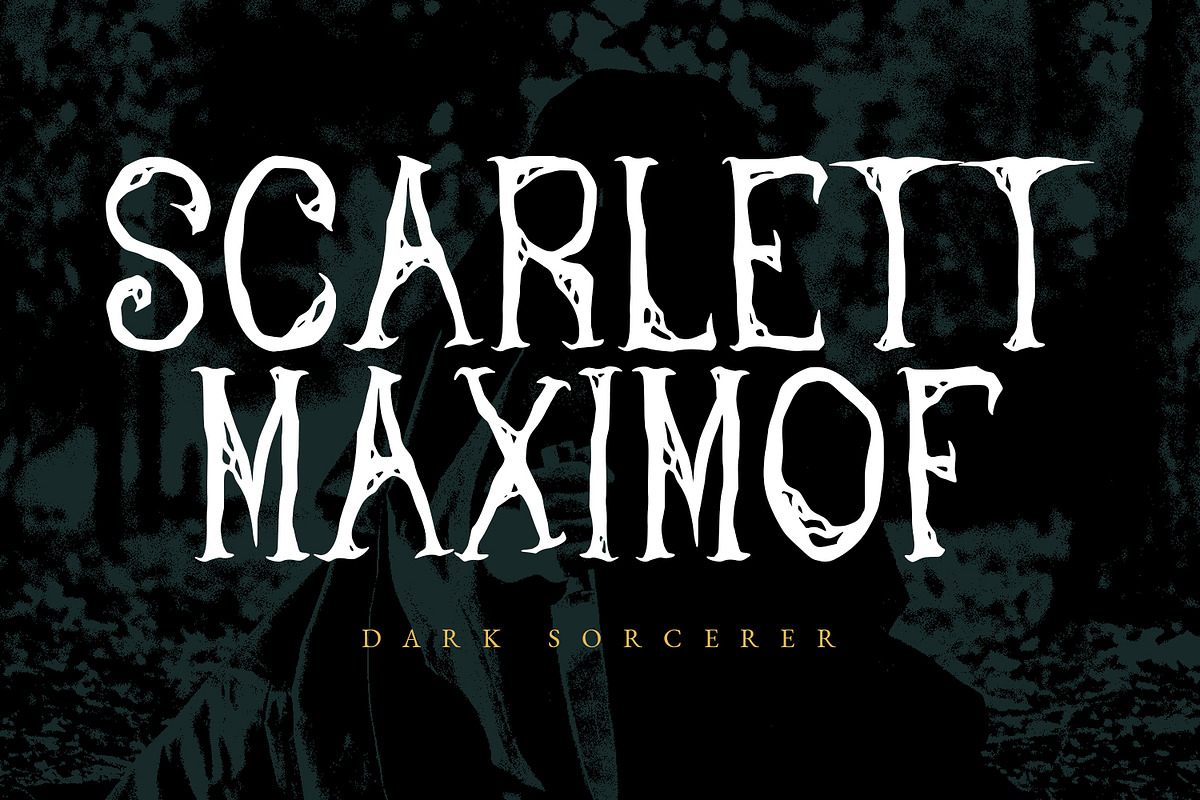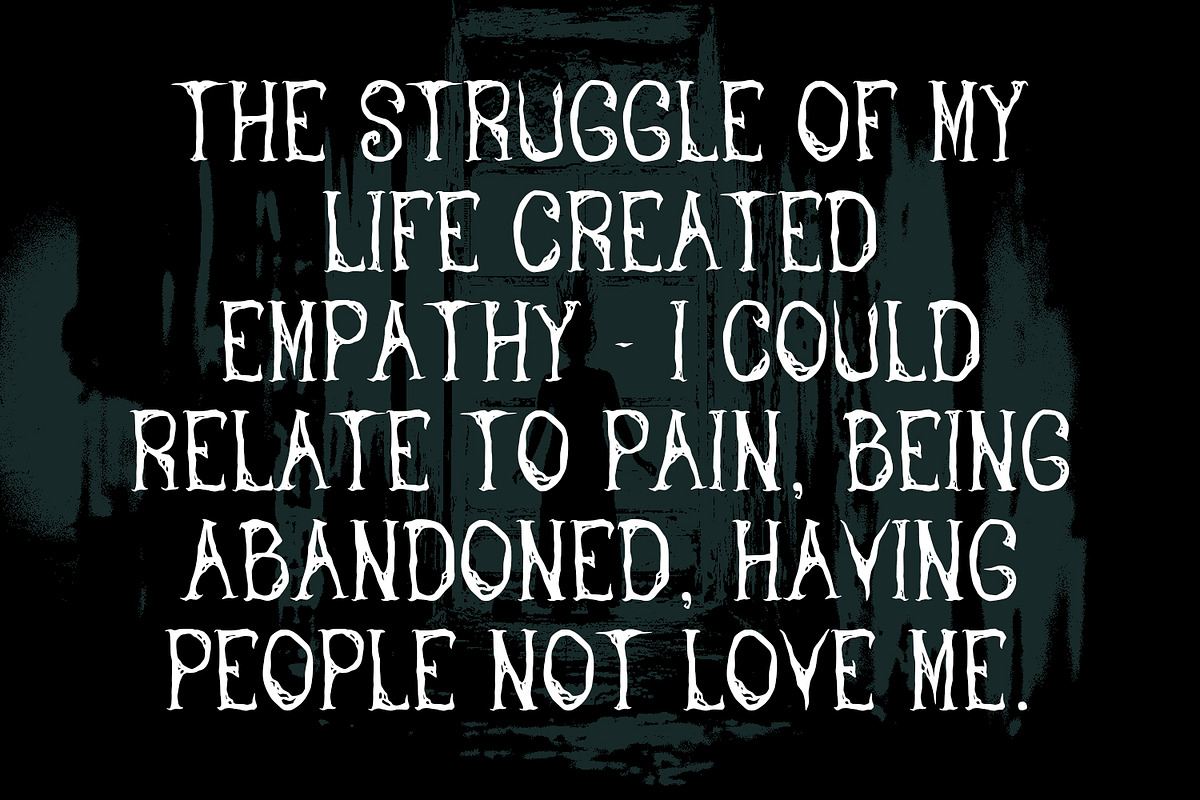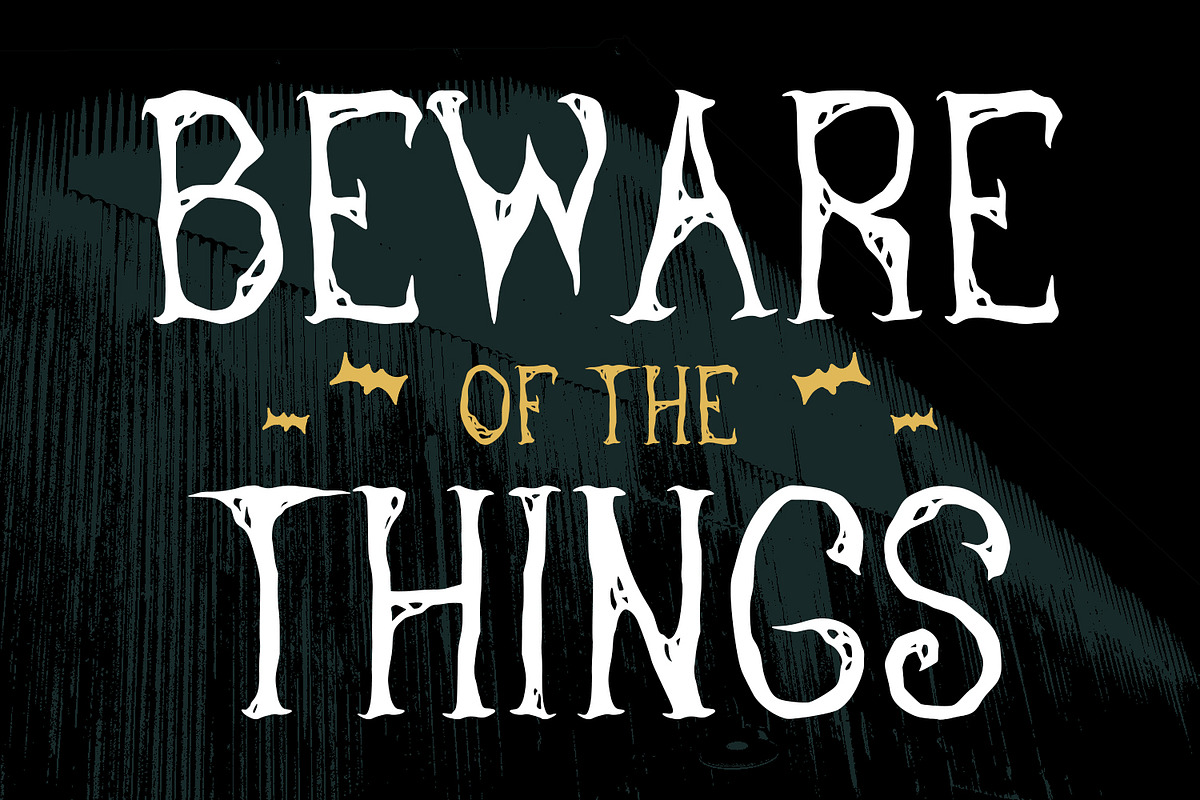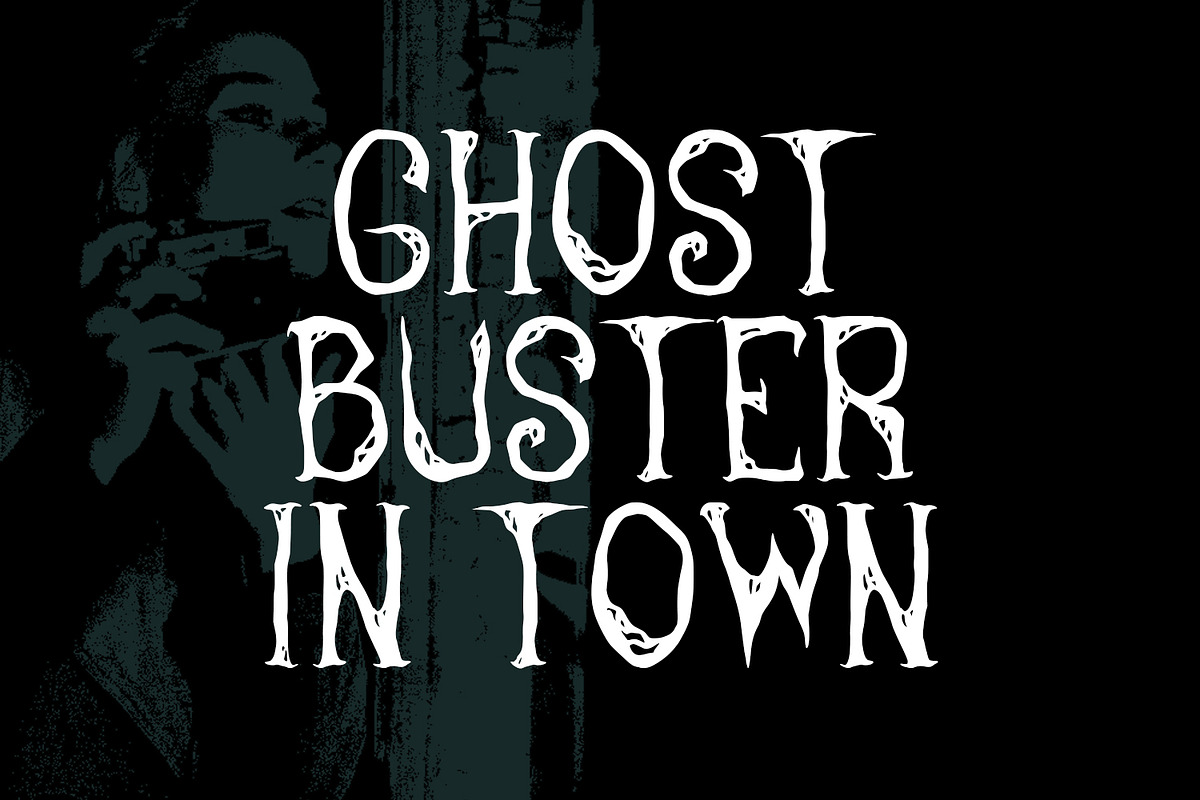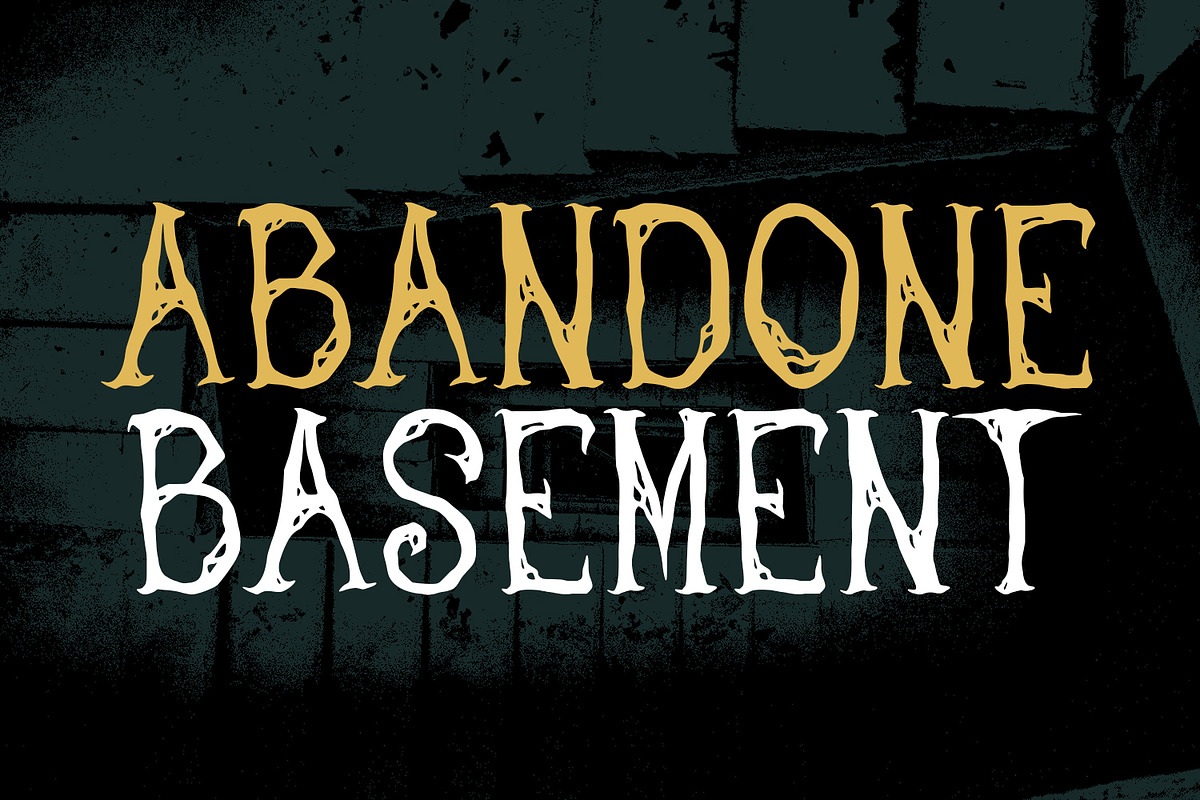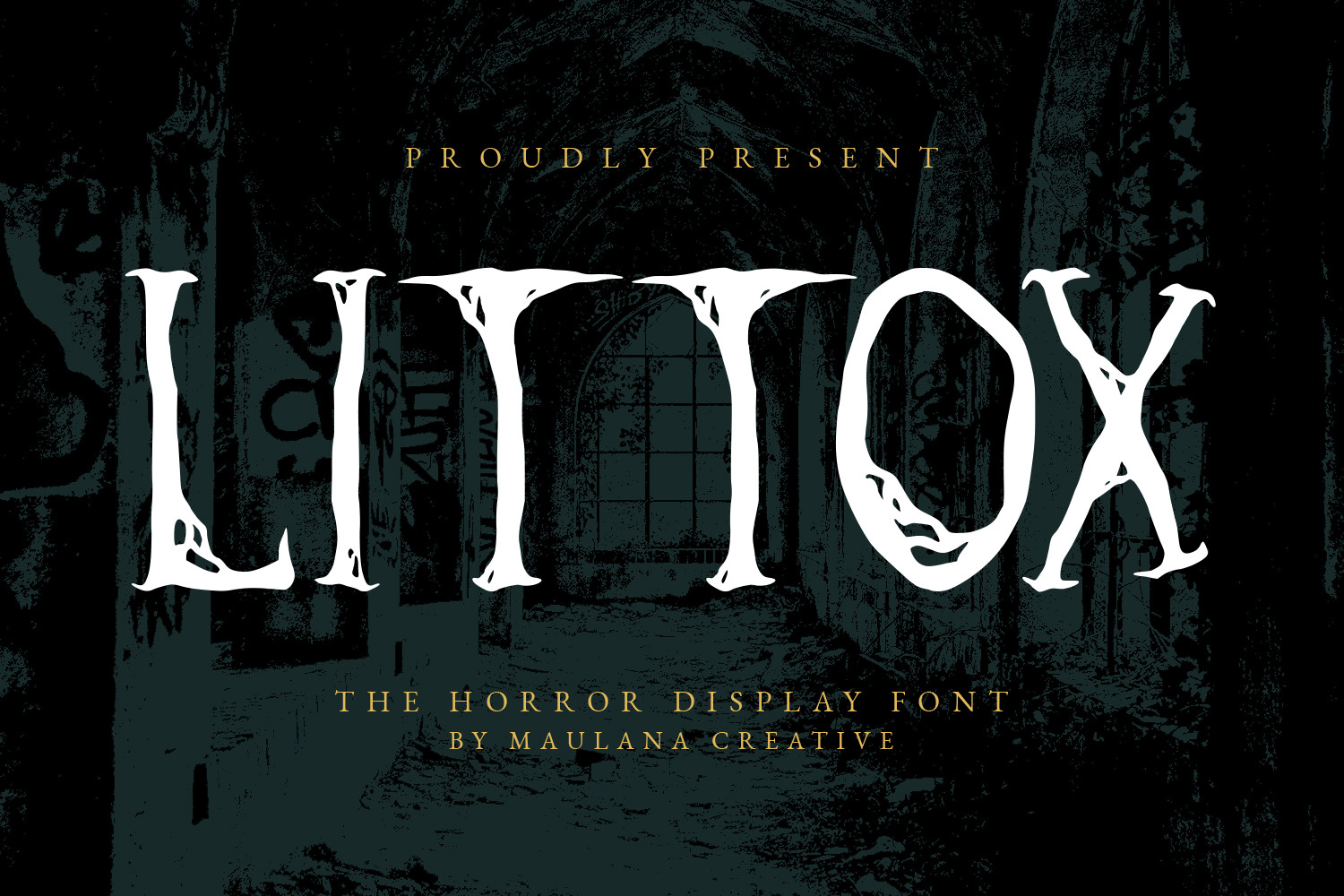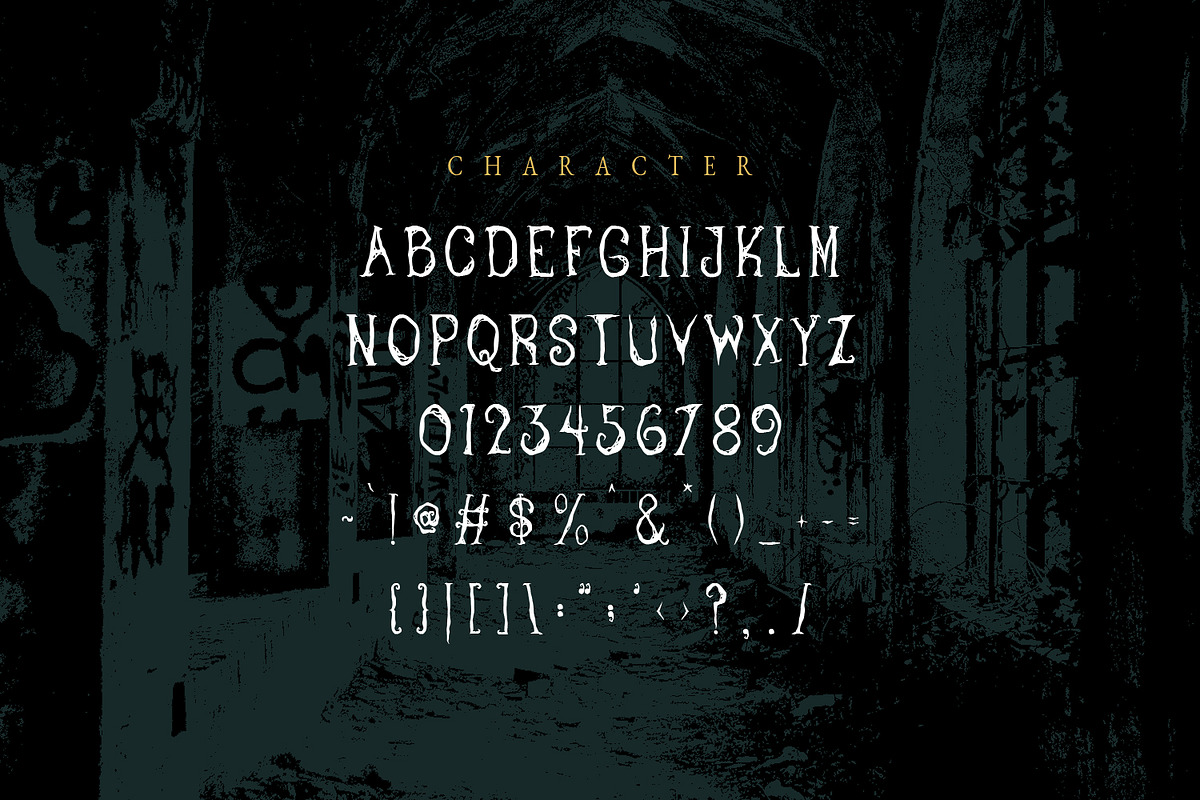
Littox Horror Display Font
Littox is a Horror Brush Display Font. fun character with a bit brush stroke. To give you an extra creative work. Littox font support multilingual more than 100+ language. This font is good for Headline, logo design, Social media, Movie Titles, Books Titles, a short text even a long text letter and good for your secondary text font with sans or serif. Make a stunning work with Littox font.